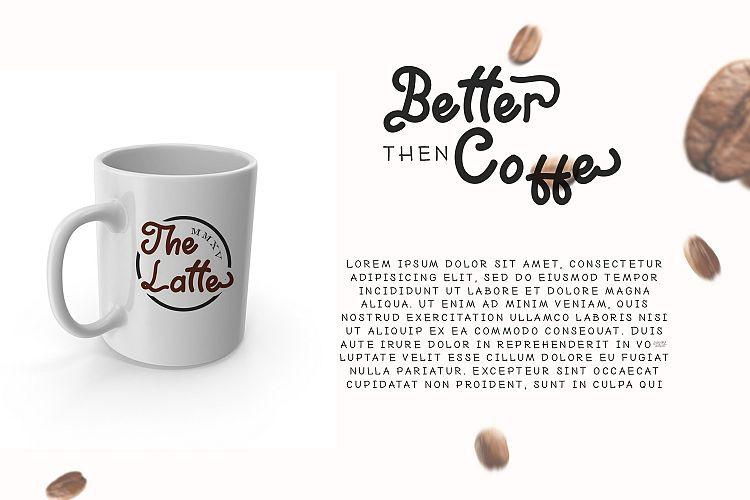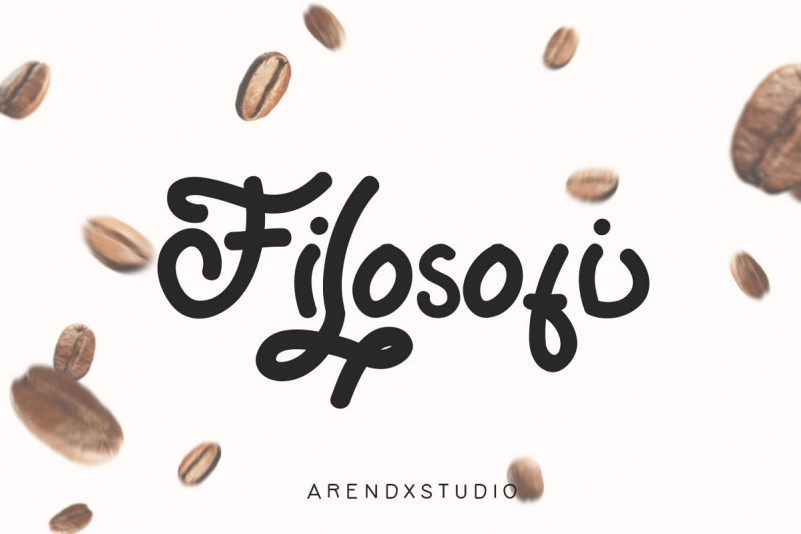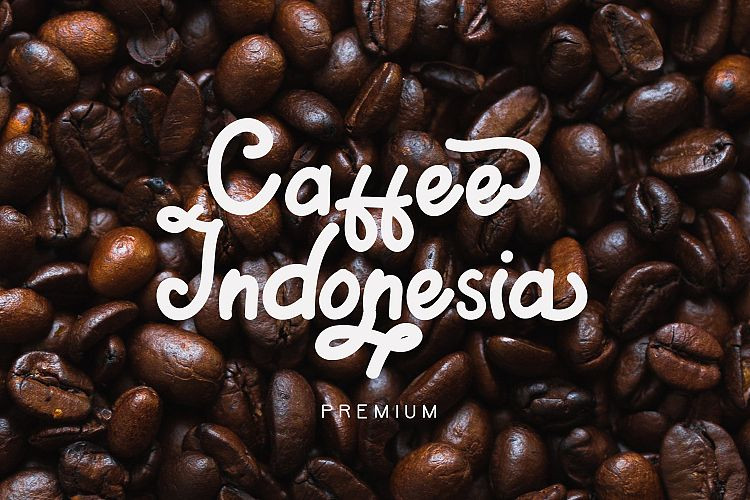
Filosofi Font Script Font
Filosofi Font inspired by the Filosofi Coffe  film that tells about the pleasures of coffe, reflects calm, productivity, and patience